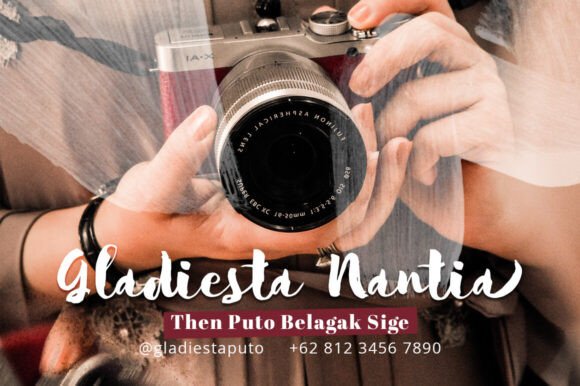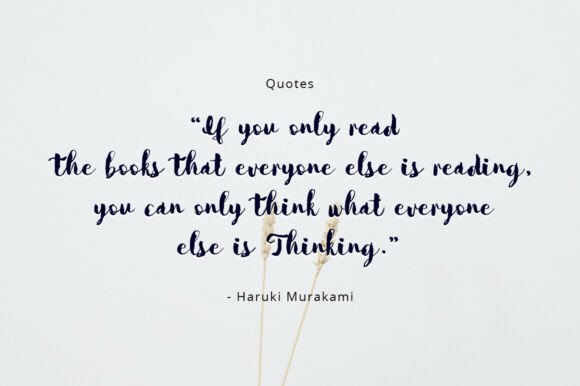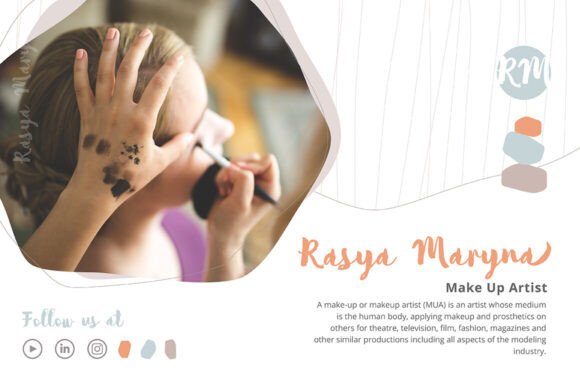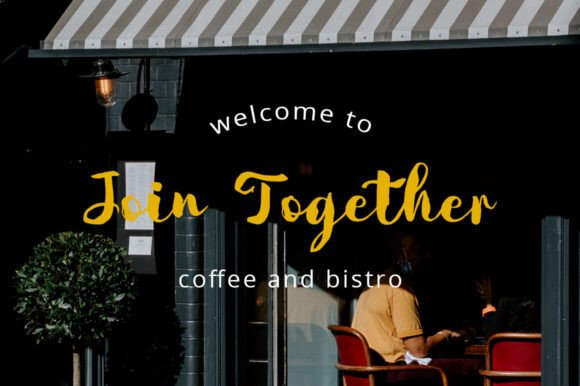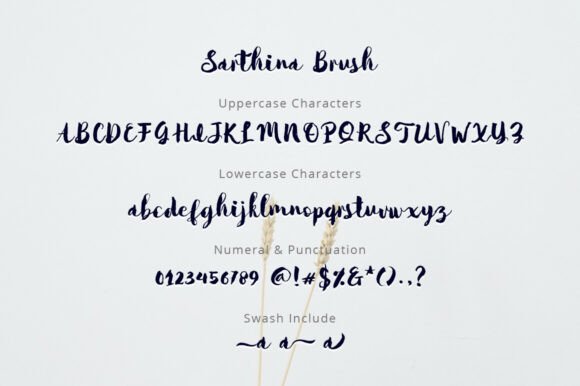
Introduction to Sarthina Font
As a designer, have you ever found yourself staring at a blank canvas, trying to bring a concept to life? You’ve got a vision, but the right typography is missing. That’s where Sarthina Font comes in – a game-changing, high-quality font that adds an artistic touch to any project. Whether you’re working on a creative project, designing a website, or crafting a beautiful wedding invitation, Sarthina Font is the perfect design resource to elevate your work.
What sets Sarthina Font apart is its versatility. With its elegant, brush-lettered design, it effortlessly complements transparent backgrounds, watercolour effects, or standalone brushed letters. It’s not just a font – it’s a strategic design asset that can be used in various applications, from social media creatives to product design and advertising campaigns.
With its superior quality and aesthetic appeal, Sarthina Font is a valuable addition to any designer’s toolkit. And the best part? It’s available for free download, making it an accessible design resource for creatives of all levels. Get ready to take your designs to the next level with the Sarthina Font.
Key Features of Sarthina Font
- High-quality, professional design suitable for various creative projects
- Comes with a transparent background, ideal for designers who need flexibility
- Unique characteristics include elegant script and modern sans-serif styles
- Perfect for use in logos, headings, and body text in various design projects
Honest Review: Sarthina Font
I recently stumbled upon the Sarthina Font, and I must say it’s been a game-changer for my creative projects. The high quality and sleek design make it a valuable addition to any design resource.
Here are some aspects that work well for me:
- ✨ The font’s versatility makes it suitable for various design applications, from logos to typography.
- ✨ The transparent background feature allows for seamless integration with any background image or color.
- ⚠️ The font might not be suitable for projects requiring bold, condensed typography.
- ⚠️ Some users may find the font’s elegance too simplistic for their taste.
Overall, I’m impressed with the Sarthina Font. Its high quality, versatility, and ease of use make it a valuable design resource. While it may not be perfect for every project, it’s definitely worth considering for your next creative endeavor.
Sarthina Font
The Sarthina Font is a high-quality design resource ideal for creative projects. Its unique style and transparent background make it perfect for adding a touch of elegance to your designs.
Getting the Most Out of Sarthina Font
To get the most out of the Sarthina Font, use it in conjunction with other design elements, such as images and graphics. Experiment with different font sizes and colors to create a unique look.
The Sarthina Font is ideal for a variety of use cases, including:
- Social media graphics and presentations